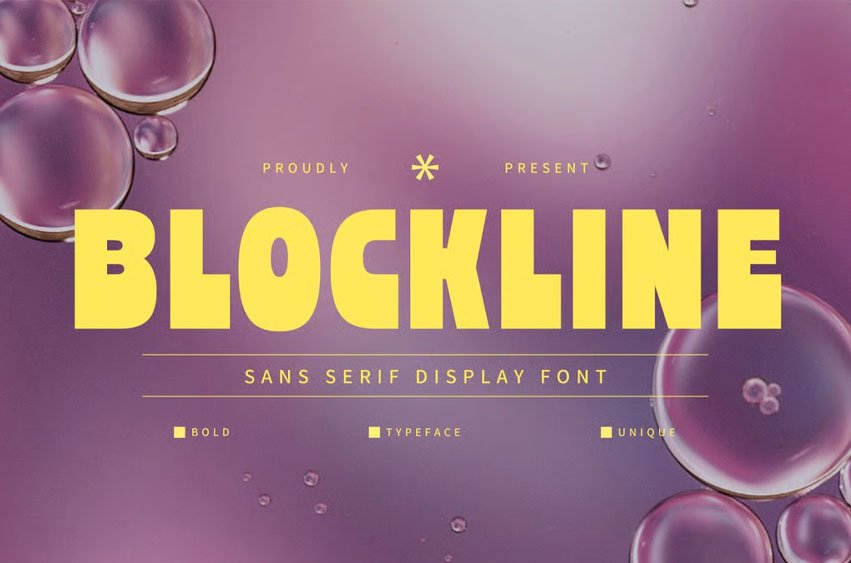
Blockline Font is a bold sans-serif display font crafted for impactful titles, modern branding, posters, and social media visuals.
Its strong geometric style delivers high readability and standout presence, perfect for designers seeking a clean, confident, and contemporary typeface. Ideal for logos, headlines, and creative projects.